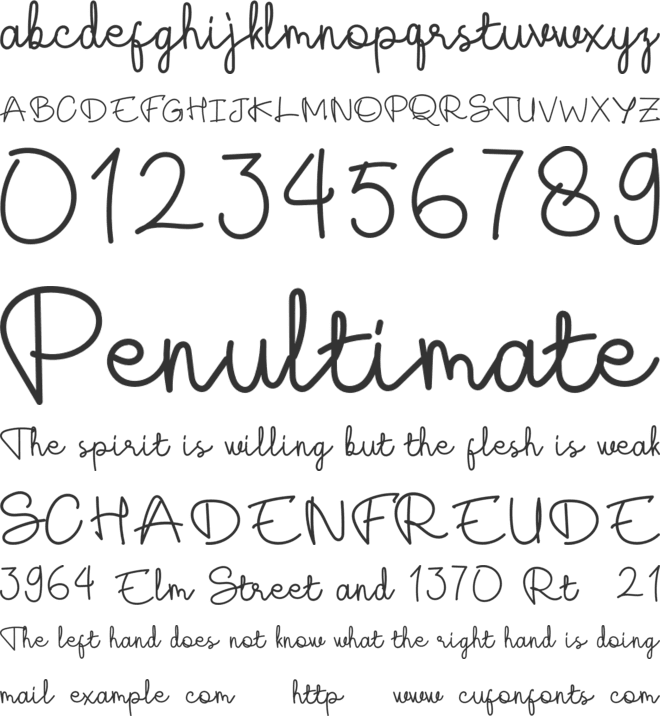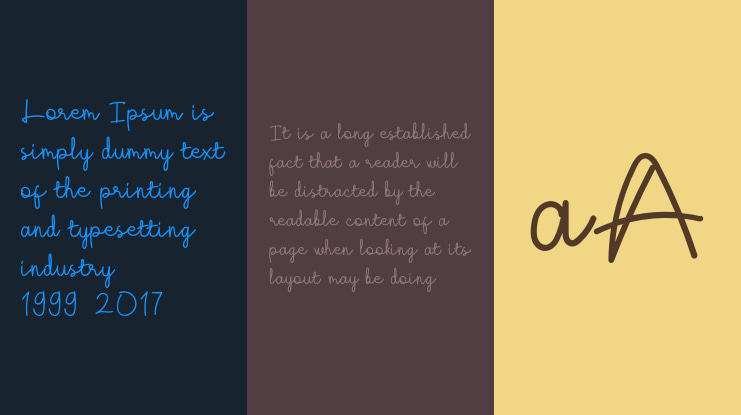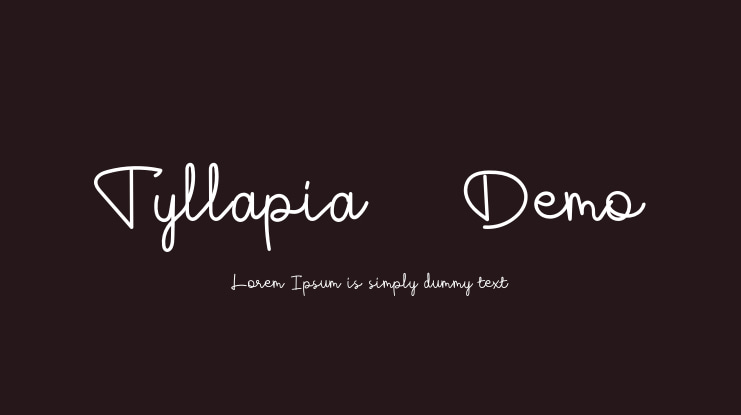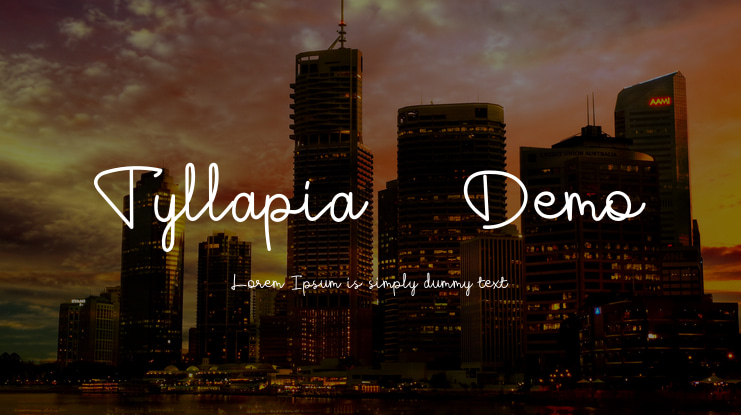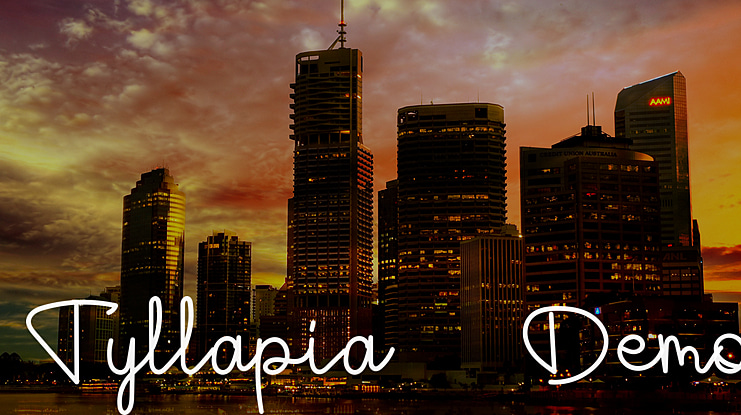
Tyllapia - Demo Font
Introducing Tyllapia - Handwritten Script Font
This is KaryAmo's first handwritten script font, the unconsistency of kerning give your design a unique and relaxing look.